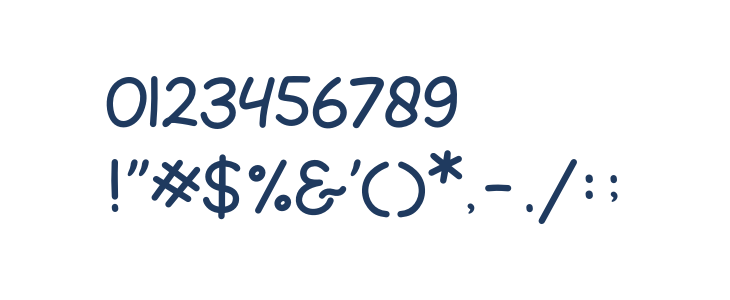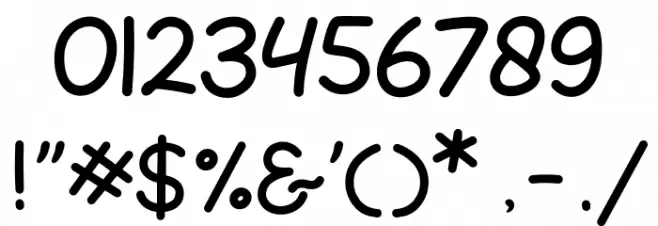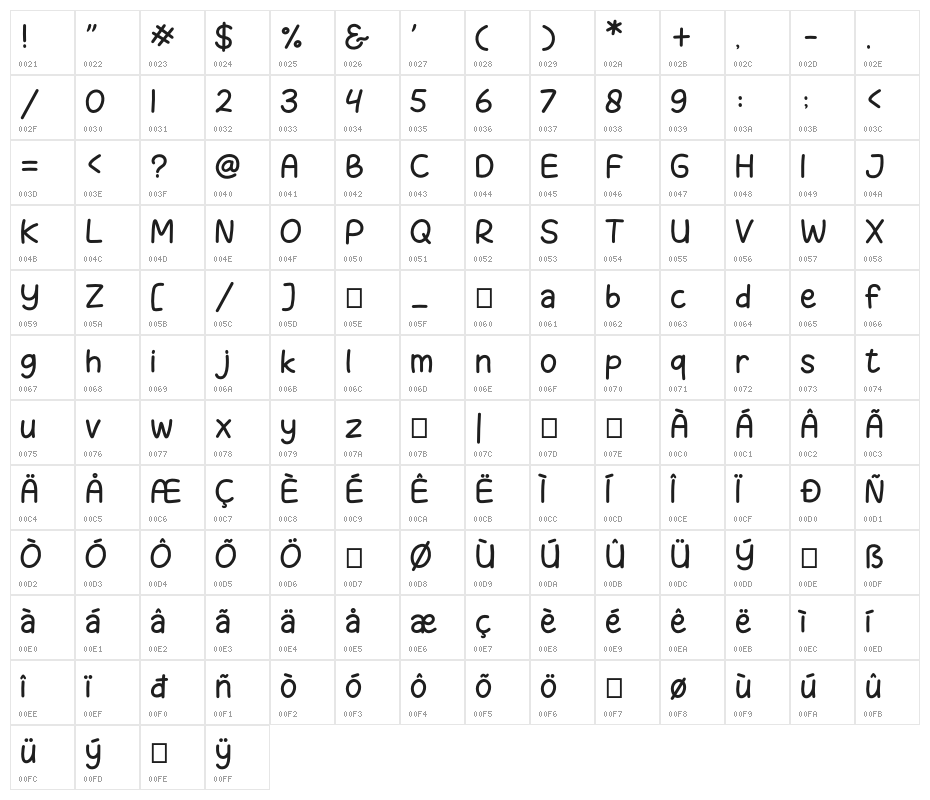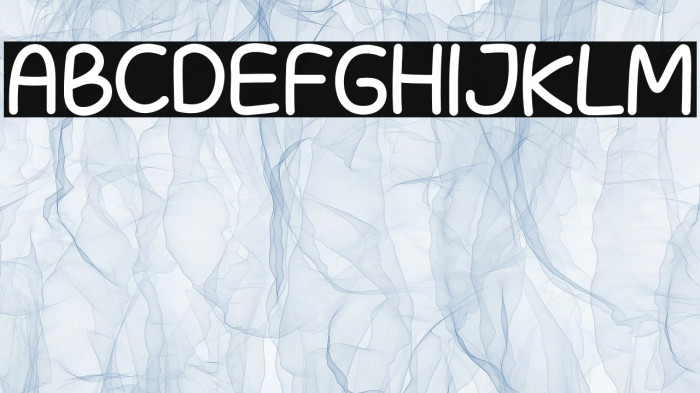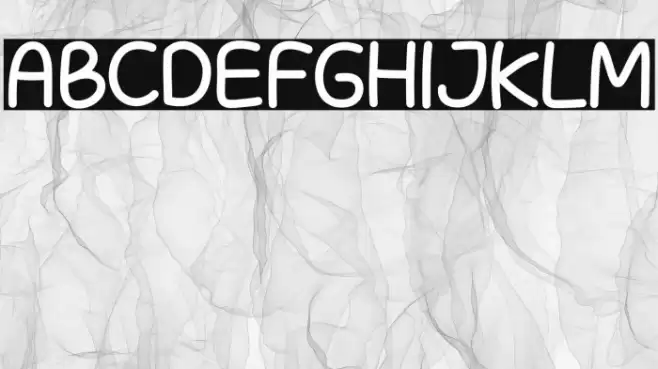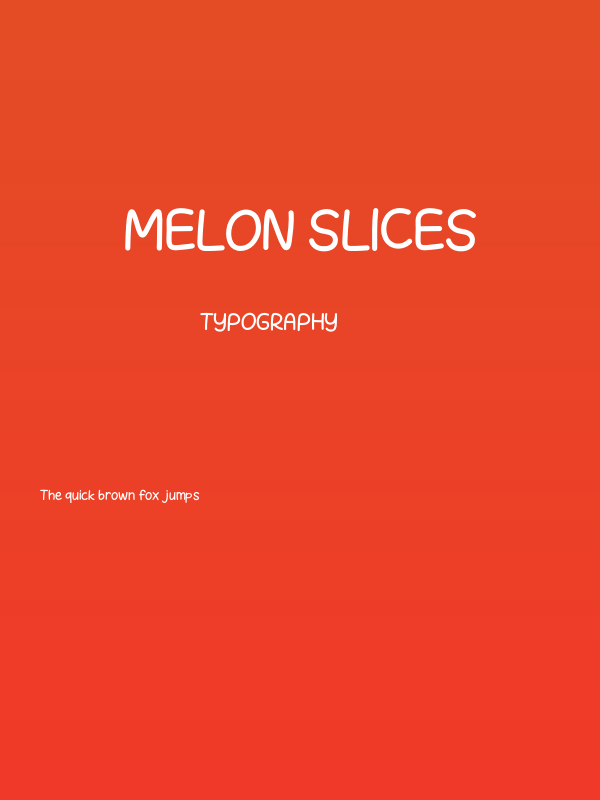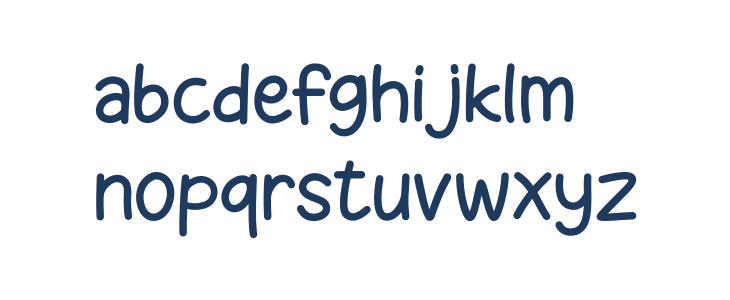
Melon Slices Font
Melon Slices Description
This playful and rounded font exudes a friendly and approachable vibe, making it ideal for projects that require a touch of whimsy and warmth. The characters are uniformly bold with smooth curves and a consistent stroke width, contributing to its inviting appearance. The font maintains a casual and informal style, with a slight handwritten feel that adds a personal touch. Its legibility is high due to the clear distinction between each character, making it suitable for both digital and print media. The spacing between characters is balanced, ensuring readability while maintaining its playful aesthetic.
| Proposed Projects | Ideal for children's books, playful branding, casual invitations, and social media graphics. |